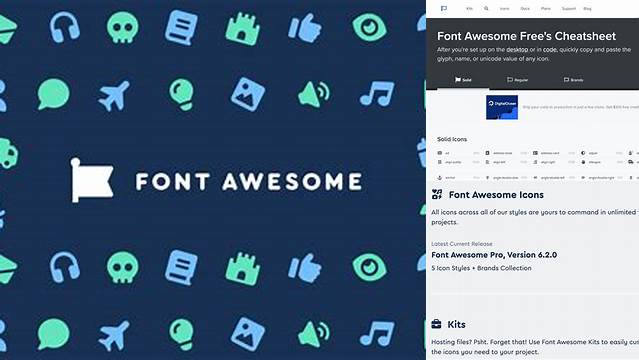
Hey guys! If you're looking to spice up your websites or projects with some seriously cool icons, you've landed in the right place. We're diving deep into Font Awesome Free, your go-to resource for a massive library of awesome icons, all available without costing you a dime. This guide is designed for everyone, from coding newbies to seasoned web developers. We'll cover everything from getting started with the library, installing it on your site, and customizing the icons to make them uniquely yours. So, grab your favorite beverage, and let's get started! We'll transform your sites into visually stunning experiences using the power of Font Awesome Free. Get ready to learn, create, and have a blast while doing it. Let's make your projects pop with style and functionality.
Exploring the Font Awesome Free Icon Library
Alright, let's talk about the fun part: diving into the treasure trove of icons that Font Awesome Free offers. This library is packed with a huge variety of icons, covering everything from social media logos and navigation arrows to everyday symbols and special characters. No matter your project's needs, there is an icon there for you. To explore the library, the first place to visit is the official Font Awesome website. There, you'll find a searchable catalog where you can browse through all the available icons. The icons are well-categorized, which makes it easy to find what you're looking for. You can search by keyword, style, or even filter by specific categories like brands, user interface, or commerce. As you browse, pay attention to the different styles available. The free version of Font Awesome includes solid, regular, and brand styles. Solid icons are filled, regular icons are outlined, and brand icons are designed for popular brands like Facebook, Twitter, and Instagram. It's important to familiarize yourself with these styles to ensure consistency throughout your project. Each icon comes with its own unique HTML code. When you find an icon you like, click on it to view its details. You'll see the HTML code you need to embed it into your project. It's as simple as copying and pasting that code into your HTML. Now, let's dive deeper into the available styles.
Solid Icons
Font Awesome Free provides a solid style that's perfect for a bold, impactful look. Solid icons are filled with color, providing a strong visual presence on your website. This style is ideal for emphasizing important elements, calls to action, or highlighting key features. When choosing solid icons, consider their ability to grab attention and draw the user's eye. Because they are filled, they often work well when you want to create a strong visual contrast against the background. Use solid icons for buttons, navigation elements, or any other interactive components where you want to provide clear visual feedback to the user. Think about using them to represent actions or states, like a filled-in checkmark to show a task is complete or a filled-in heart to indicate something is a favorite. These icons have to be used carefully to ensure that they do not clutter your website. They are there to highlight important details and do not cause visual noise. The key is to balance the use of solid icons with other styles, such as regular or outline icons, to create a visually appealing and user-friendly interface. This style can be very powerful, especially when used correctly. Mastering solid icons allows you to create a website that is both visually attractive and easy to navigate. The solid style is one of the strengths of Font Awesome Free. They can significantly improve the design.
Regular Icons
If you are aiming for a more subtle and elegant design, then the regular style in Font Awesome Free is the way to go. Unlike solid icons, regular icons are outlined, which offers a cleaner and more minimalist aesthetic. This style is great for creating a sense of sophistication and reducing visual clutter on your website. Regular icons work beautifully in contexts where you want the icons to blend more seamlessly with the overall design, such as in navigation menus or alongside text. Their outline design makes them perfect for use in a variety of settings. They can be a great addition to any website or project. Regular icons are excellent for presenting information without drawing too much attention. Regular icons offer a versatile solution for creating a design that is both functional and visually appealing. The key is to experiment with different combinations and styles until you find the perfect balance that fits your design's goals. They provide a level of detail that is perfect for various elements of a website. This style provides a balanced approach to your website’s design. Using this will bring a level of professionalism to any site. The regular style can give the best appearance to your website and is a perfect addition to any project.
Brand Icons
Font Awesome Free also gives you a fantastic selection of brand icons. These are pre-designed logos for popular brands and social media platforms. This feature is a real time-saver, as you don't have to create or find your own logos. The brand icons are perfect for creating social media links, showcasing your partners, or simply adding a touch of familiarity to your website. When you use brand icons, you immediately give your site a professional look. The recognition value of these icons helps users quickly understand the context and functionality of your website. The brand icons are not just for visual appeal; they also enhance the user experience by providing a clear indication of the related brands. This makes it easy for users to connect with you on their preferred social media platforms. It also boosts your website’s credibility. Whether it’s Facebook, Twitter, Instagram, or any other popular platform, Font Awesome Free has you covered. Brand icons are a must-have for any modern website. These pre-designed logos seamlessly integrate into your website. They're ready to use, easy to implement, and come in various styles to match your design. By including brand icons, you can make your website visually attractive and user-friendly. They are also a great way to give your site a professional look. The brand icons available are a great way to create a visual connection between your website and other platforms.
Now, let's talk about how to customize the icons to match your project. You can change the size of the icons by adding CSS styles. For example, you can use the font-size property to make the icon larger or smaller. You can also change the color of the icons using the color property. The more you experiment with the CSS properties, the more possibilities you will have. You can create various and unique styles that help your website stand out. Make sure to test different sizes and colors to ensure that your icons look great. Remember, the key is to integrate these icons seamlessly. They need to complement your content and overall design. Make sure you test various options to find what suits your website the most. The icons are ready to use and can be customized with a few CSS changes. This customization is a great way to make your website unique.
Customizing Icons with CSS
Let's talk about making those Font Awesome Free icons truly your own by customizing them with CSS. Customizing the icons is what will help you create a more personalized and unique feel for your website. First off, size matters! You can easily change the size of your icons using the font-size property in your CSS. You can define the size of the icon in pixels (px), ems (em), or any other unit supported by CSS. For example, if you want to make an icon larger, you might use the following CSS: i.fas.fa-heart { font-size: 36px; }. This would make the heart icon larger. Besides the size, you can also change the color of your icons using the color property. It's as easy as specifying a color name (e.g., red), a hex code (e.g., #FF0000), or an RGB value (e.g., rgb(255, 0, 0)). For example: i.fas.fa-heart { color: red; }. Furthermore, you can add hover effects using the :hover pseudo-class. This allows you to change the icon's appearance when the user hovers their mouse over it. This is an excellent way to provide visual feedback and make your website more interactive. For example: i.fas.fa-heart:hover { color: purple; }.
You can also rotate icons using the transform: rotate() property, which can add a dynamic touch to your website. You can add a shadow to your icons using the text-shadow property. By combining different CSS properties, you can create an almost endless range of visual effects. Experimenting is key! Try different combinations of size, color, and effects to see what works best for your website. Make sure the customizations align with your project's overall design and branding. Remember, the goal is to create a visually appealing and user-friendly experience. With a little creativity and experimentation, you can transform Font Awesome Free icons. Using these customization options can take your website design to the next level and make it very appealing.
Adding Icons to Buttons
Let's talk about the simple but powerful art of adding Font Awesome Free icons to buttons! This is a great way to enhance the user experience and make your calls to action more visually appealing. Buttons with icons are more engaging and can guide the user's attention, making it easier to understand the purpose of the button. You can include the icon directly within the button's HTML code. Here's how: first, you'll need to have your icon HTML code ready. For example, let's say you want to add a heart icon to a button. The HTML code for that icon, along with your custom text, might look like this: <button><i class="fas fa-heart"></i> Like</button>. In this case, the heart icon will appear alongside the word "Like." You can also control the icon's position (before or after the button text) to achieve the desired layout. You can easily style your button with CSS to adjust the icon's size, color, and placement. For instance, you can center the icon and text, adjust the padding, and change the background color to create a more polished look. For a more aesthetically pleasing design, you may want to use icons that work well with your brand's colors. You can use hover effects. This provides users with clear feedback when they interact with the button. This will also enhance the overall user experience. Icons on buttons can be very effective. The key is to find the right balance and ensure the icons complement your button's text and design. They will encourage users to interact with your website. You can add some visual flair and improve its usability.
Tips and Tricks for Working with Font Awesome Free
Alright, let's wrap up with some insider tips and tricks to help you become a Font Awesome Free icon pro. First, keep your icons organized! As your project grows, so will the number of icons you use. To avoid icon chaos, it's a good idea to organize your icons. Consider grouping icons by their purpose or the sections of your website they belong to. This will make it easier to find and manage your icons later on. Secondly, make sure your website design is optimized for performance. Even though Font Awesome Free is designed to be lightweight, it's still a good idea to optimize your website for performance. This means minimizing the number of HTTP requests your website makes and using a CDN to serve the icon files. Third, make sure to use the correct version and icon style. Font Awesome frequently updates its library. Using the latest version ensures you have access to the newest icons and features. You can also use the correct styles. The different styles add visual interest and make your website more appealing. Remember that the key is to practice and have fun with the icons. The more you use them, the more comfortable you'll become with all the possibilities. And, don't be afraid to experiment! Mix and match icons, styles, and customizations to create a unique visual experience. By keeping these tips in mind, you'll be well on your way to designing websites that are both visually stunning and user-friendly. These tips and tricks will help you improve your skills.
Using Icon Kits for Customization
Icon Kits, offered by Font Awesome Free, are a fantastic way to customize your icon experience. These kits give you more control over which icons and styles you use in your project. This can lead to a more streamlined and efficient workflow. Unlike using the CDN or downloading the entire Font Awesome library, icon kits allow you to select only the icons and styles you need. This means less bloat and faster loading times. First, you need to create a Font Awesome account and log in to the Font Awesome website. From there, you can create a new kit. In the kit settings, you can choose which icons you want to include. This selection allows you to reduce your project's file size and improve loading speeds. After you've created your kit, you'll get a unique embed code. This embed code should be added to the <head> section of your HTML document. This code links your website to your custom kit, ensuring that only the icons you've selected are loaded. Now, you're ready to start using the icons in your project. Remember that the main advantage of using icon kits is the ability to customize the exact icons. This also improves your website's loading times. The custom selection ensures that your website loads quickly. Your website is optimized for performance with the Font Awesome Free icon kit. You can easily integrate a custom set of icons into your project.
Accessibility Considerations
When incorporating Font Awesome Free icons into your web projects, accessibility must be a top priority. Ensure your website is usable by everyone, including those with disabilities. Always make sure that your website is accessible to everyone, including those with disabilities. One of the most critical aspects of accessibility is providing alternative text (alt text) for each icon. Alt text describes the icon's meaning and purpose. Screen readers use this alt text to convey the information to users who are visually impaired. The aria-hidden="true" attribute is important to use because it helps to hide decorative icons from screen readers. This prevents the screen reader from announcing unnecessary information. Also, ensure that your icons have sufficient color contrast against the background. This makes the icons easily visible to users with visual impairments. Use the color contrast guidelines provided by the Web Content Accessibility Guidelines (WCAG) to ensure your icons meet accessibility standards. You can also use ARIA attributes to improve the accessibility of your icons. You can also make sure your icons are navigable. This will allow keyboard users to easily access interactive icons. Be mindful of how you use icons in relation to the overall design of your website. Avoid relying solely on icons to convey important information or instructions. Always provide additional context, such as text labels or tooltips, to enhance clarity. By following these guidelines, you can create websites that are visually appealing and accessible to everyone. These guidelines will help you use Font Awesome Free while complying with accessibility standards.